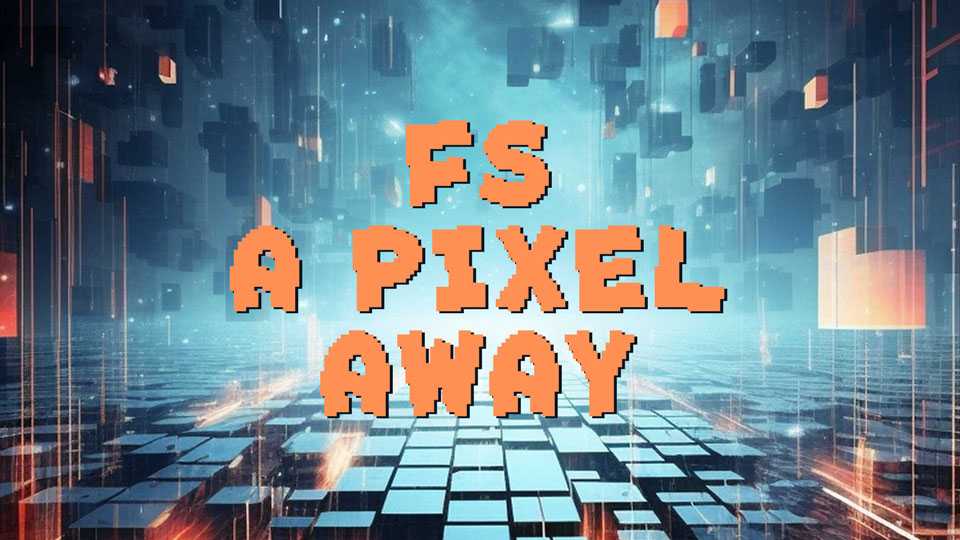
Download FS A Pixel Away font, a bold and playful pixel handwritten-like typeface that combines the charm of hand-drawn lettering with the retro appeal of pixel art.